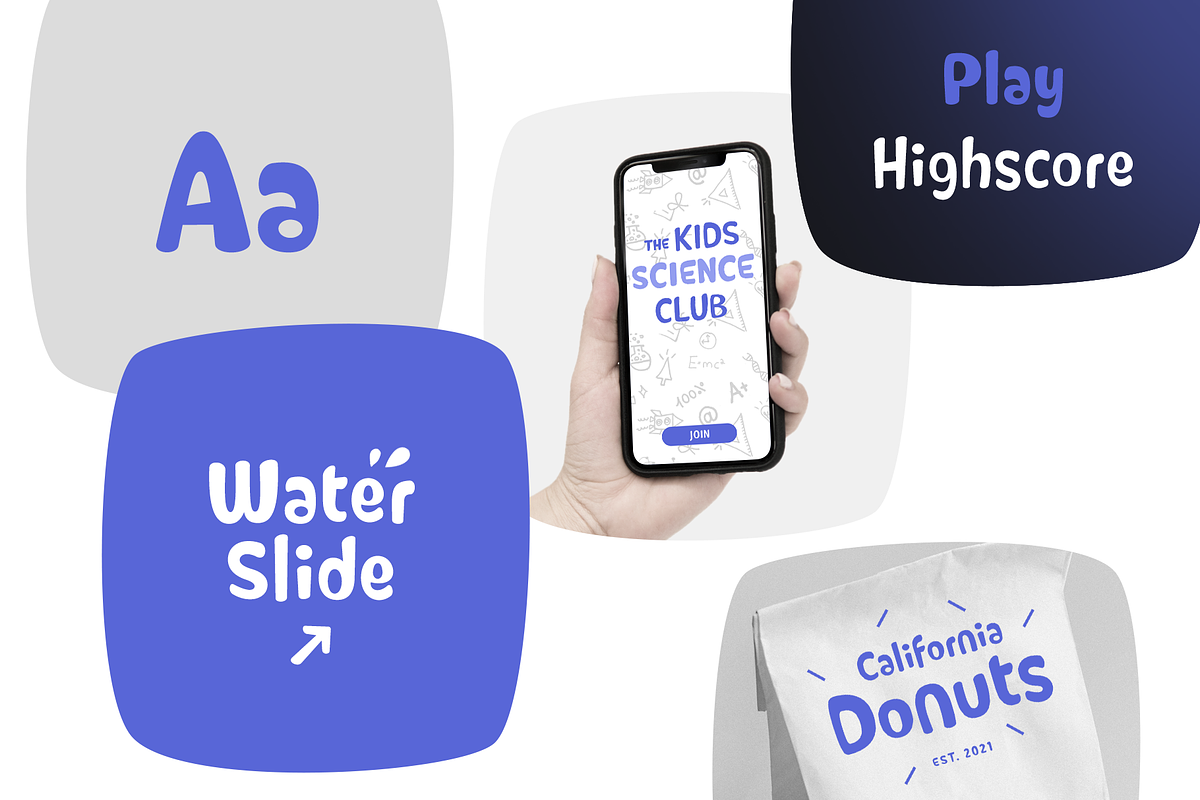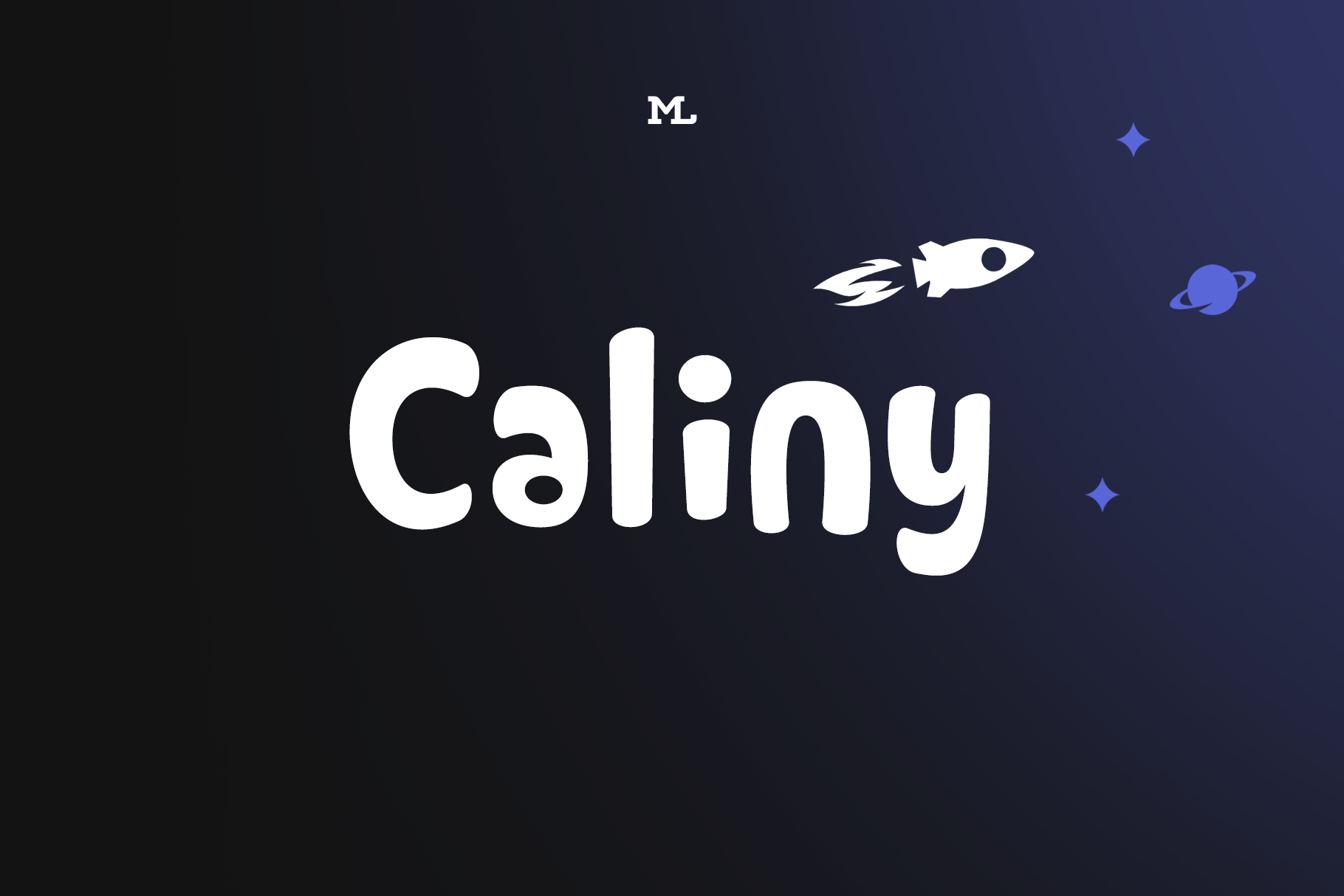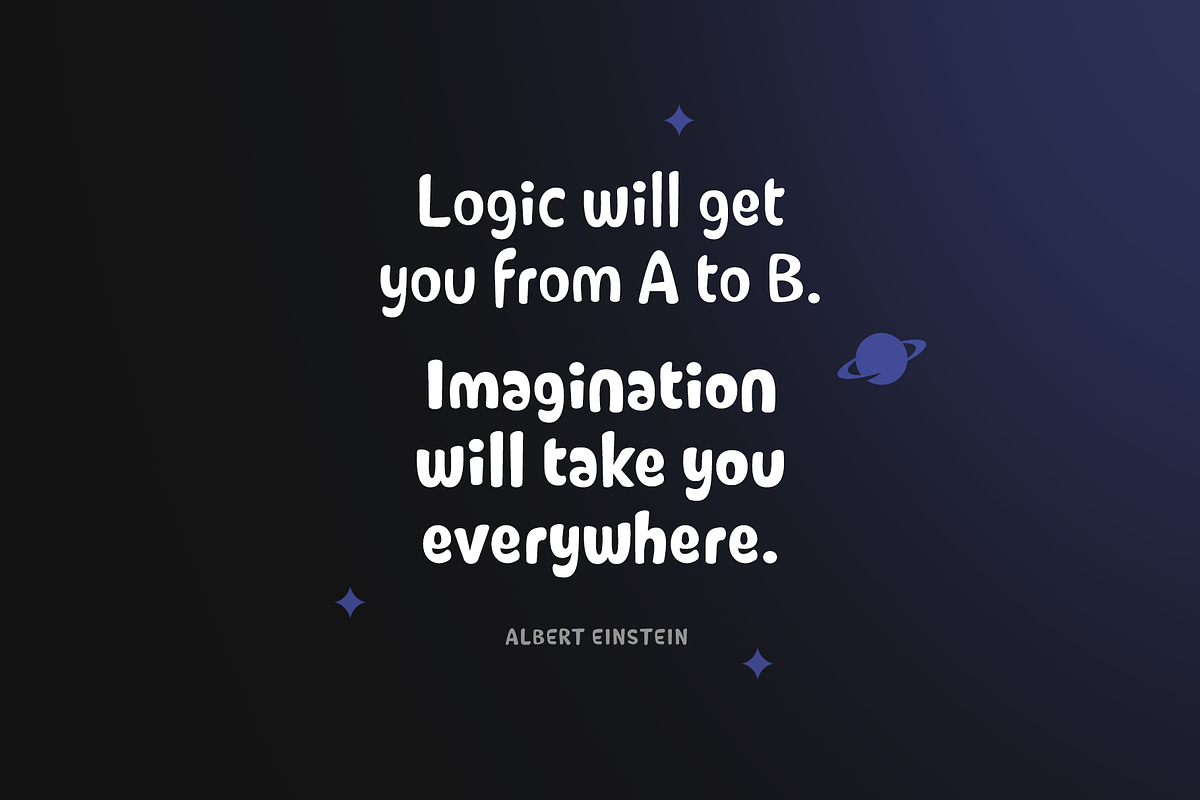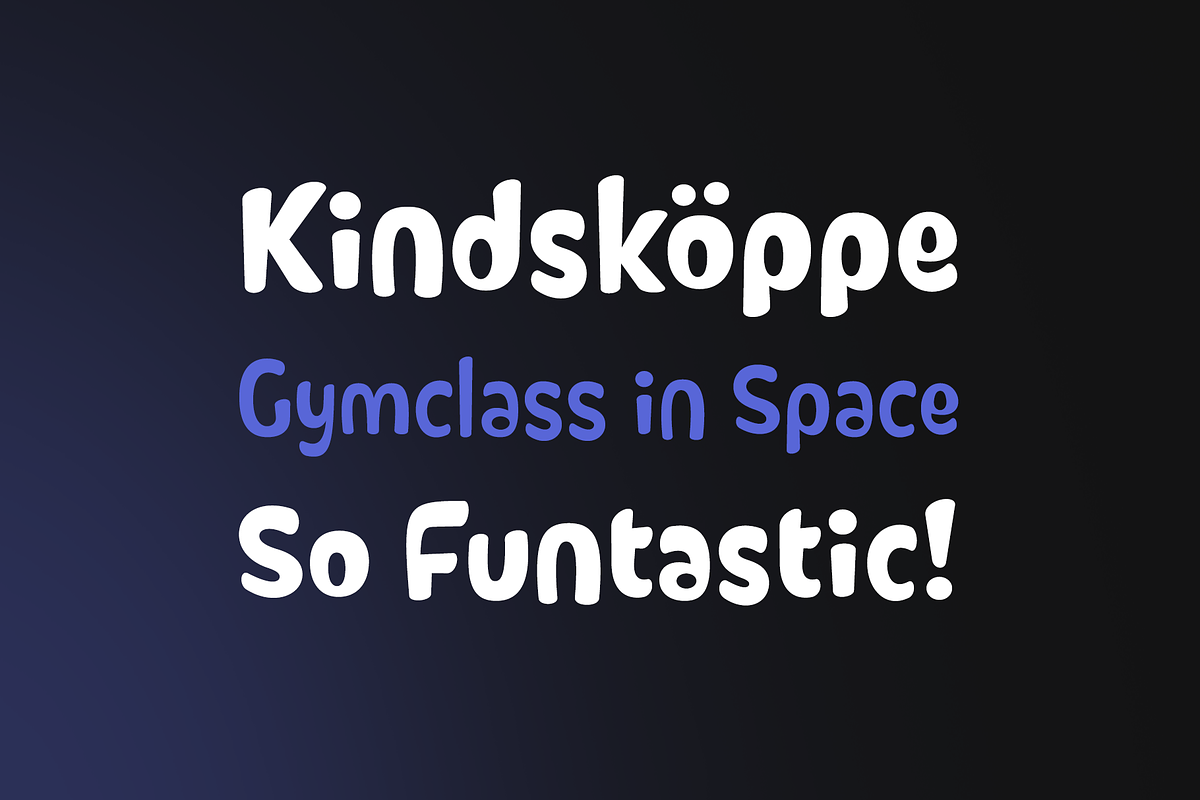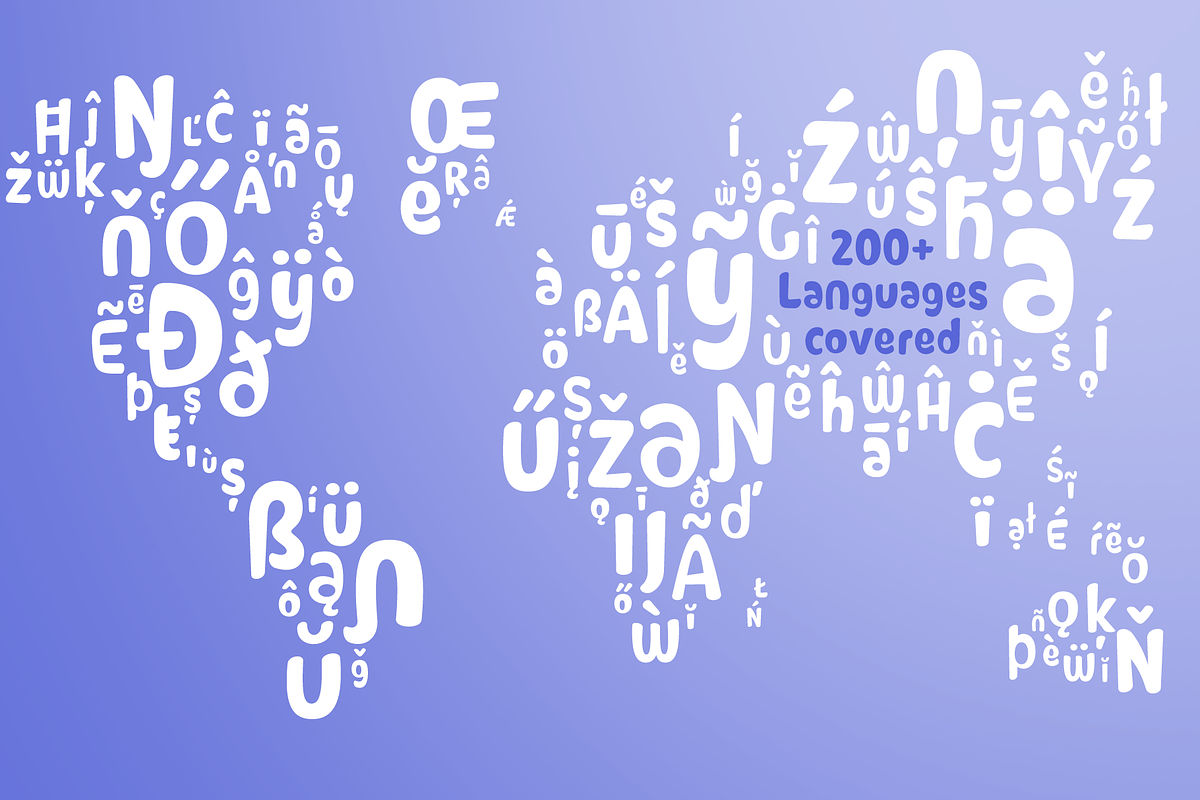
Caliny – Funny 3-Font-Family
This cheerful font family combines cuteness and fun, making it a great choice for any kid’s app, book, toy, packaging, movie, theme park and so much more.
- 3 carefully drawn fonts
- 499 glyphs per Font
- 200+ languages covered
- different figure sets
- case sensitive forms
- automatic arrows
- and more!